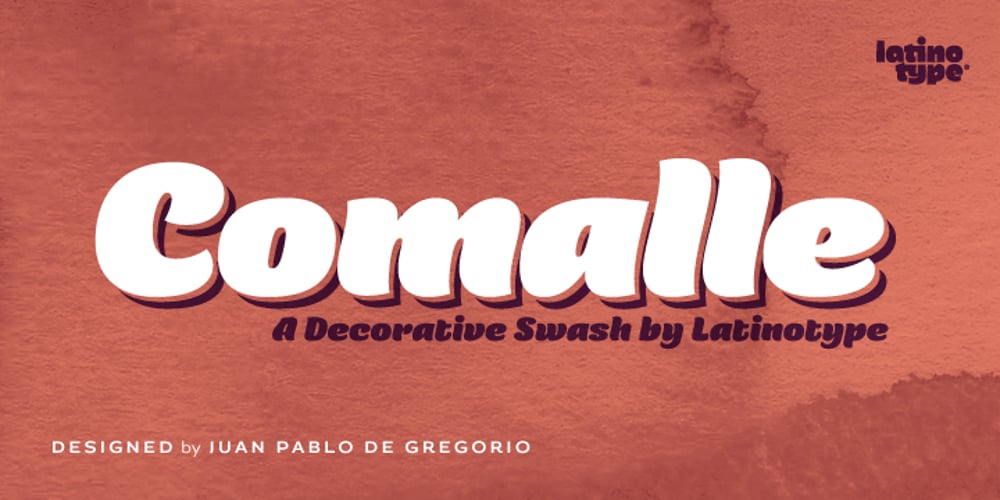
Comalle
Comalle font
Comalle Font Family was designed by Juan Pablo De Gregorio and published by Latinotype. Comalle contains 1 styles and family package options. Comalle is an organic typeface that rescues some elements of handwritten script, but its stroke does not necessarily answer to a literal calligraphy structure. So Comalle could produce a powerful impact on the page, it was designed with thicker strokes than its counter forms. The objective is that the black of the letter fills the page and causes a fastest visual impact than typographies that balance blacks and whites. One of the most important tasks of the Comalle design was to think of how to handle the unequal percentages of blacks and whites in the typeface. The peculiar thing, is that the precision work of the letter does not make the blacks, but the whites; this is the reason why in one first instance it was very valid to start off designing in a very gross way, nevertheless, the majority energies are put in the details of the design of counter space. From the drained filling concept of forms Comalle was born, a typeface that pretends to enchant with its delicate counter space design and to impact with the heavy outlines which compose its form.